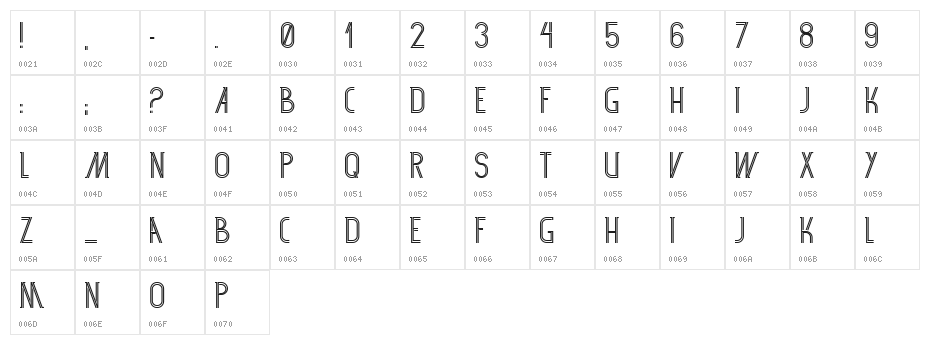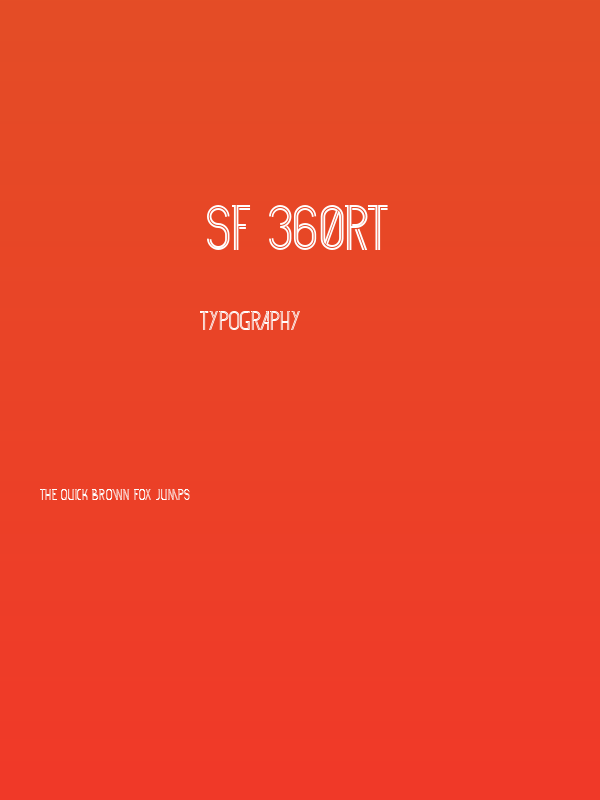
SF 360RT Font
SF 360RT Description
This font features a modern, geometric design with a distinct double-line structure that gives it a futuristic and technical appearance. The characters are uniformly constructed with clean, straight lines and sharp angles, creating a sense of precision and order. The uppercase letters are tall and narrow, while the lowercase letters maintain a consistent height and style, ensuring readability. The numerals are equally well-designed, matching the overall aesthetic with their sleek and structured form. Special characters are included, maintaining the same double-line style, which adds to the font's cohesive look. This font is ideal for projects that require a contemporary and innovative feel.